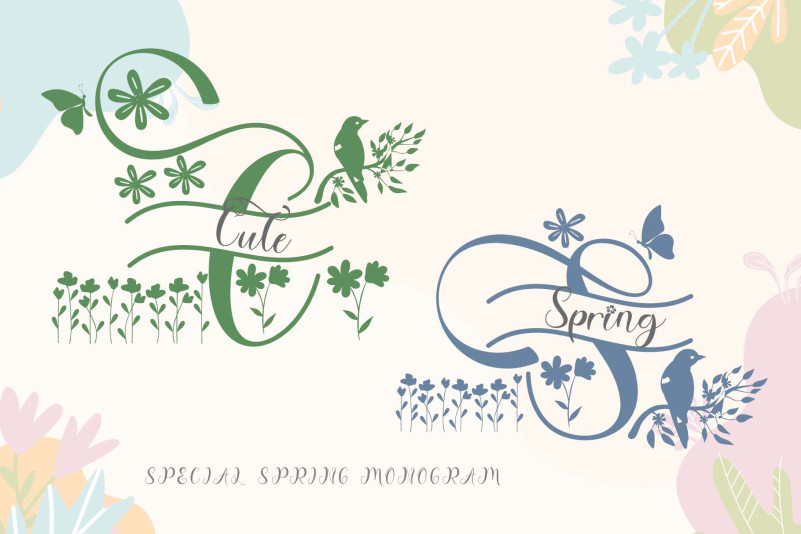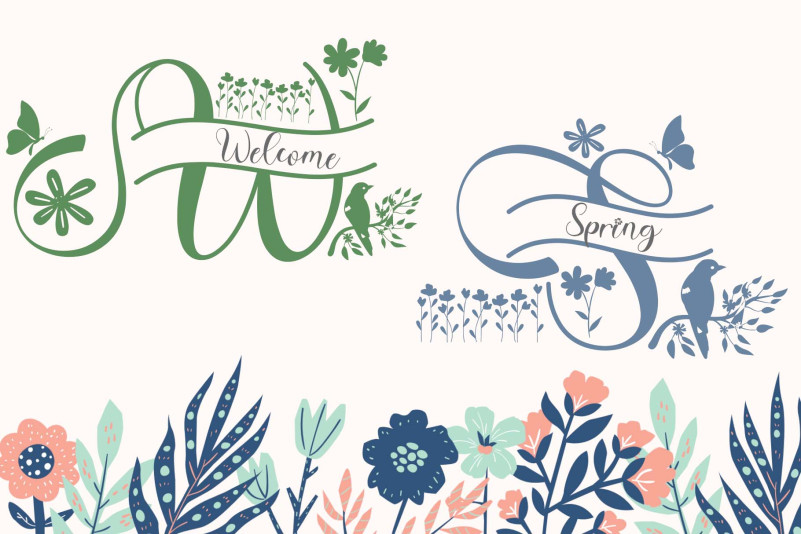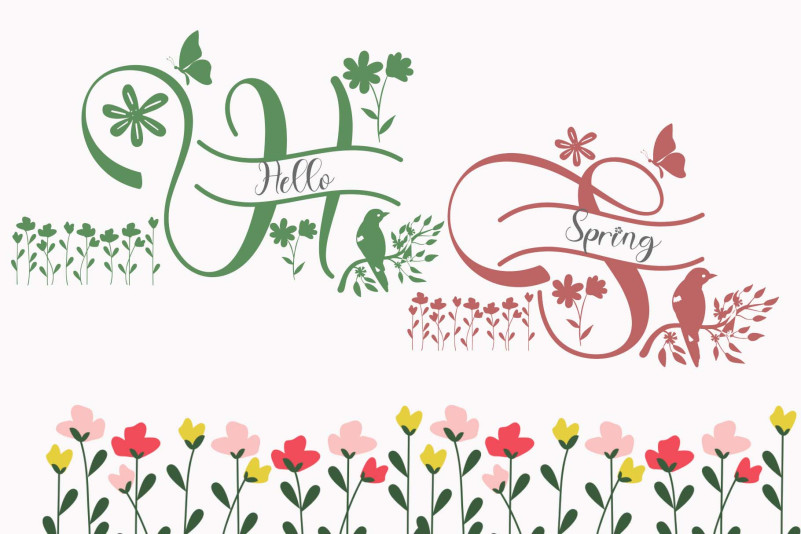
Cute Spring Monogram Font
“Cute Spring Monogram” is a handwritten font made into a monogram. Decorated with birds, flowers, and butterflies. This font is equipped with monograms, upper- and lower-case letters, swashes, titling, numerals, punctuations, and multilingual support.